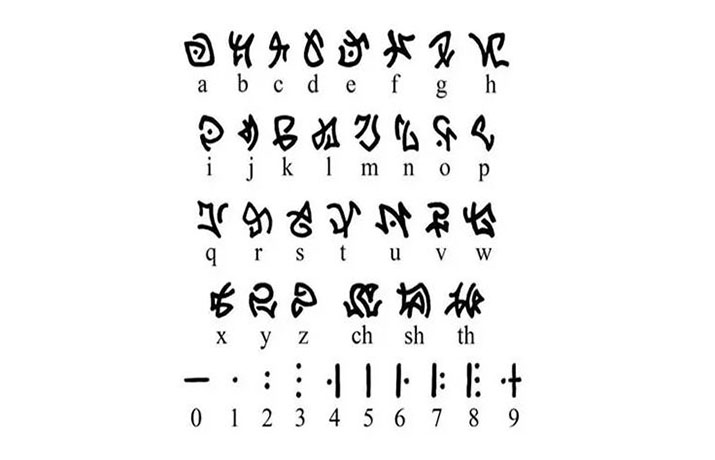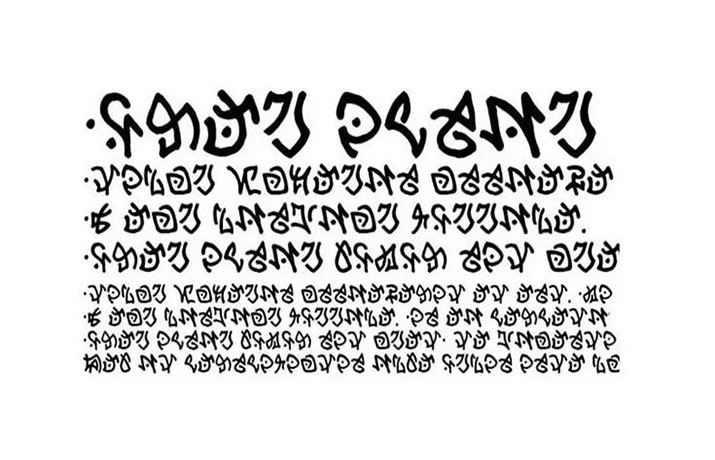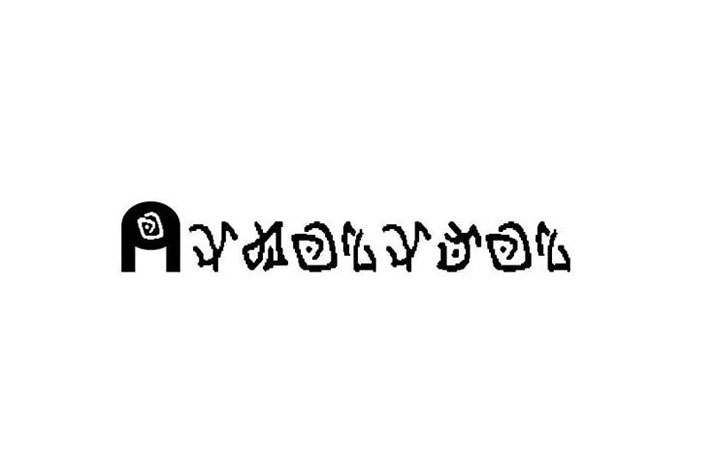
Atlantean Font is a dingbat typeface that comes in a unique handwritten texture. The Walt Disney Company took charge of designing and releasing it in 1999.
This font is based on ancient Greek or Egyptian writing systems. Each letter of this typeface is specially designed with a unique shape and does not match each other. But they were created with similar fine strokes.
All textures are made with thick strokes as well as uneven baselines. These aspects make it unique and beautiful. Use it for tattoos, cartoon posters, company secret projects, and more.